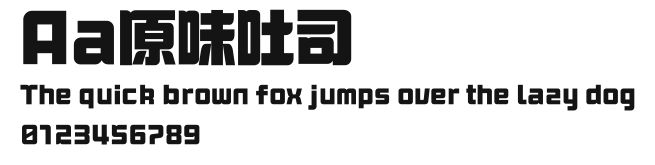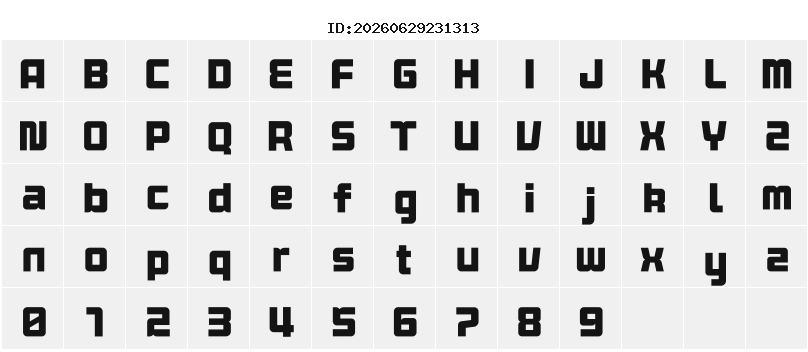
Aa原味吐司 Preview
• Font Name: Aa原味吐司
• Font Style: 常规
• Font ID: 1.000;Aa;AaYuanWeiTuSi;2024
• Full Font Name: Aa原味吐司
• PostScript Name: AaYuanWeiTuSi
• Character Count: 7909
• Designer: Aa
• Manufacturer: 翰美互通(厦门)科技有限公司
• Description: AaYuanWeiTuSi is a fantastic font with excellent features designed for user interfaces and electronic communications.
About Aa原味吐司.ttf
Aa原味吐司.ttf is a modern, elegant sans-serif font designed for ultimate readability and visual harmony. Perfect for branding, headlines, web design, and print materials.